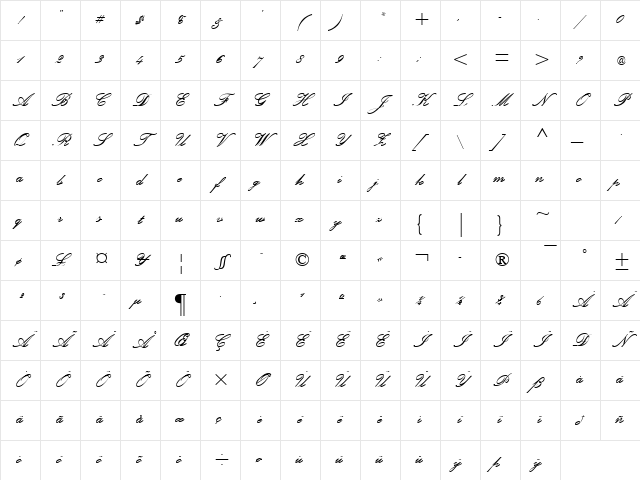
Palace Script SemiBold
Style: SemiBold
Foundry: Agfa Monotype Corporation
Design Context for Palace Script
Palace Script flows with the natural rhythm of handwritten lettering, making it ideal for designs that call for warmth and personal expression. Its bold stroke weight gives it real presence on the page.
Font Pairing: Combine Palace Script with a simple geometric sans for maximum contrast - the tension between flowing curves and clean structure is a classic typographic pairing.
Pro Tip: Use Palace Script for short runs of text - names, titles, or taglines. Extended body copy in script faces tires the eye quickly.